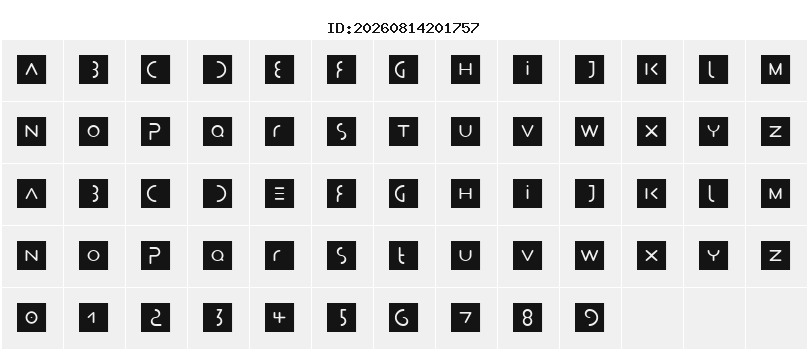
Stealth (Plain) Preview
• Font Name: Stealth (Plain)
About Stealth (Plain).ttf
Stealth (Plain).ttf is a modern, elegant sans-serif font designed for ultimate readability and visual harmony. Perfect for branding, headlines, web design, and print materials.